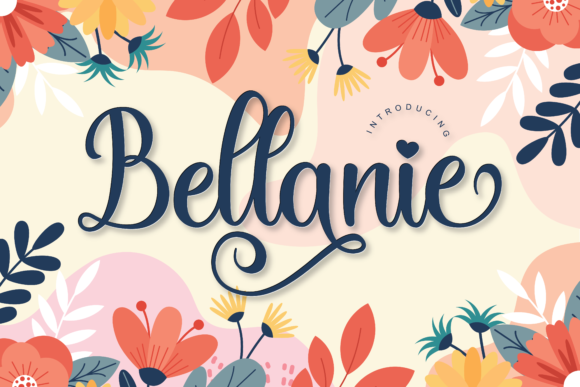
Bellanie Font: Elevate Your Designs with a Lovely Handwritten Touch
Are you looking for a font that can add a personal and elegant touch to your designs? Look no further than the Bellanie font. This beautiful handwritten font is perfect for a variety of design projects, from wedding invitations and greeting cards to logos and business cards. In this article, we’ll explore the features and benefits of the Bellanie font and show you how it can elevate your designs.
A Lovely and Flowing Handwritten Font
The Bellanie font is a lovely and flowing handwritten font that is sure to capture the attention of your audience. Its smooth lines, gorgeous glyphs, and stunning alternates make it perfect for designs that require a personal touch. Whether you’re creating wedding invitations, thank you cards, or quotes, the Bellanie font is sure to add a touch of elegance and sophistication.
The Bellanie font is versatile and can be used for a wide range of design projects. Here are some ideas to get you started:
- Wedding invitations: The Bellanie font is perfect for wedding invitations, adding a romantic and elegant touch to your designs.
- Thank you cards: Show your appreciation with beautifully designed thank you cards featuring the Bellanie font.
- Quotes: Add a personal touch to your quotes with the Bellanie font, making them perfect for social media posts, blogs, or marketing materials.
- Greeting cards: Create stunning greeting cards for special occasions, such as birthdays, holidays, or anniversaries.
- Logos: Use the Bellanie font to create a unique and memorable logo for your business or brand.
- Business cards: Stand out from the crowd with beautifully designed business cards featuring the Bellanie font.
- Access a wide range of glyphs and swashes to add variety to your designs.
- Easily customize your designs to fit your brand’s style and personality.
The Bellanie font has a range of features and benefits that make it perfect for designers and crafters. Here are some of the key features:
- Varying baseline: The Bellanie font features a varying baseline, which adds a natural and organic feel to your designs.
- Smooth lines: The font’s smooth lines make it perfect for designs that require a elegant and sophisticated touch.
- Gorgeous glyphs: The Bellanie font features a range of gorgeous glyphs, including swashes, alternates, and ligatures.
- Stunning alternates: The font’s stunning alternates allow you to add variety and interest to your designs.
The Bellanie font is a beautiful and versatile handwritten font that is perfect for a wide range of design projects. Its smooth lines, gorgeous glyphs, and stunning alternates make it perfect for adding a personal and elegant touch to your designs. With its PUA encoding, you can easily access all of the glyphs and swashes you need to customize your designs. Whether you’re a designer or crafter, the Bellanie font is sure to become a favorite in your collection.